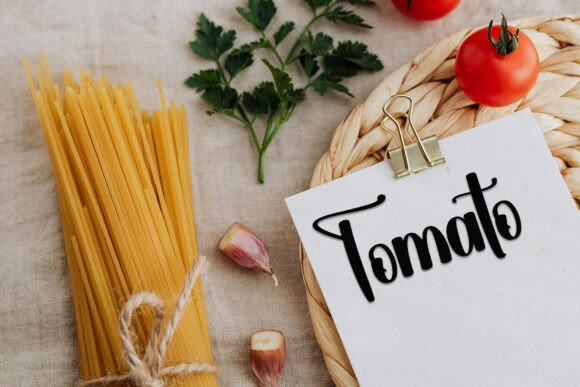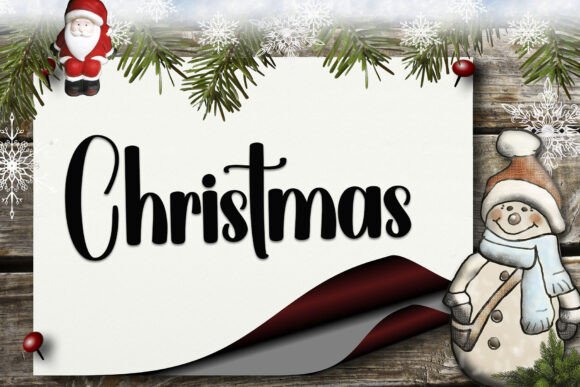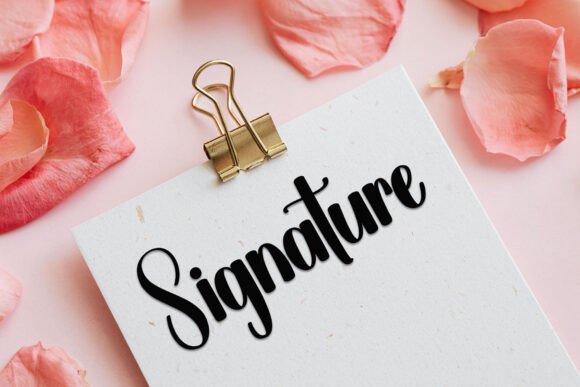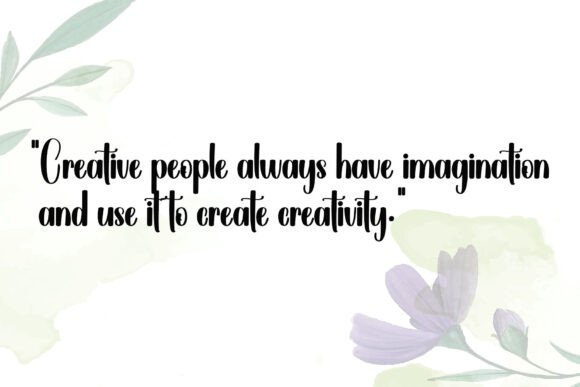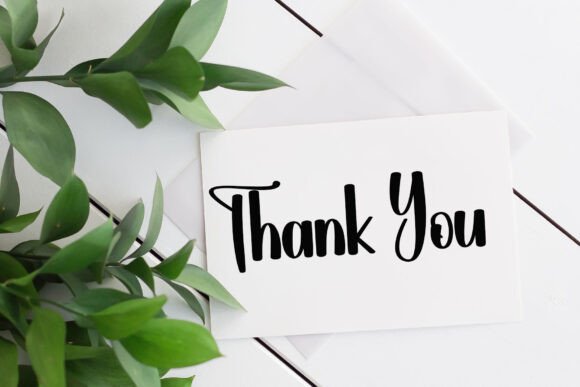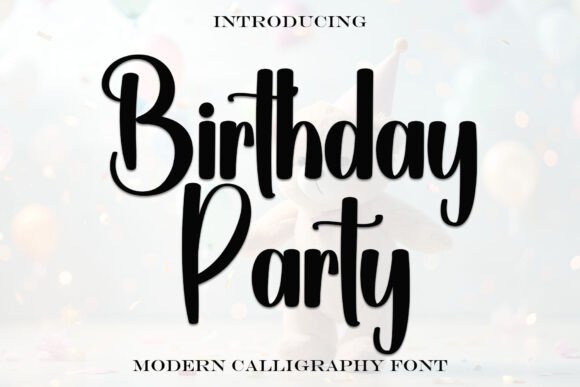
The Magic of Birthday Party Font: Elevate Your Holiday Designs
It’s that time of the year again – the holiday season is just around the corner, and with it comes the pressure to create stunning designs that capture the spirit of the festivities. I still remember the year I was tasked with designing a Christmas card for a client’s family gathering. I spent hours scouring the internet for the perfect font, only to end up with a bland, generic typeface that failed to convey the cheer and joy of the season. Fast forward to today, and I’m thrilled to share with you a game-changing font that will make your holiday designs shine: Birthday Party Font.
A Festive and Happy Typeface
Birthday Party Font is a decorative typeface that embodies the essence of celebration and joy. With its unique flair and decorative elements, this font adds a touch of charm to your designs, making it perfect for greeting cards, gift labels, and holiday-themed projects. The best part? It’s PUA coded, which means you can easily access all the amazing glyphs and ligatures to take your designs to the next level.
So, what makes Birthday Party Font so special? Here are a few things I love about this font:
- ✨ Unique and decorative elements that add a touch of whimsy to your designs
- ✅ PUA coded for easy access to glyphs and ligatures
- 🎉 Perfect for holiday-themed projects, greeting cards, and gift labels
- 👍 Highly legible, even at smaller font sizes
While Birthday Party Font is a stunning typeface, it’s not without its quirks. Here are a few things to keep in mind:
- ⚠️ May not be suitable for body text or long-form content due to its decorative nature
- 🤔 Limited use of uppercase letters, which may impact versatility
The Story Behind Birthday Party Font
Birthday Party Font was created by a talented type designer who’s passionate about creating unique and festive fonts for the holiday season. Inspired by the magic of childhood celebrations and the joy of gift-giving, this font is designed to bring a touch of whimsy and wonder to your designs.
| What is PUA coding, and how does it benefit me? | PUA (Private Use Area) coding allows you to access glyphs and ligatures easily, making it simple to use the font’s decorative elements in your designs. |
| Is Birthday Party Font suitable for body text or long-form content? | While Birthday Party Font is a beautiful typeface, it’s not recommended for body text or long-form content due to its decorative nature. |